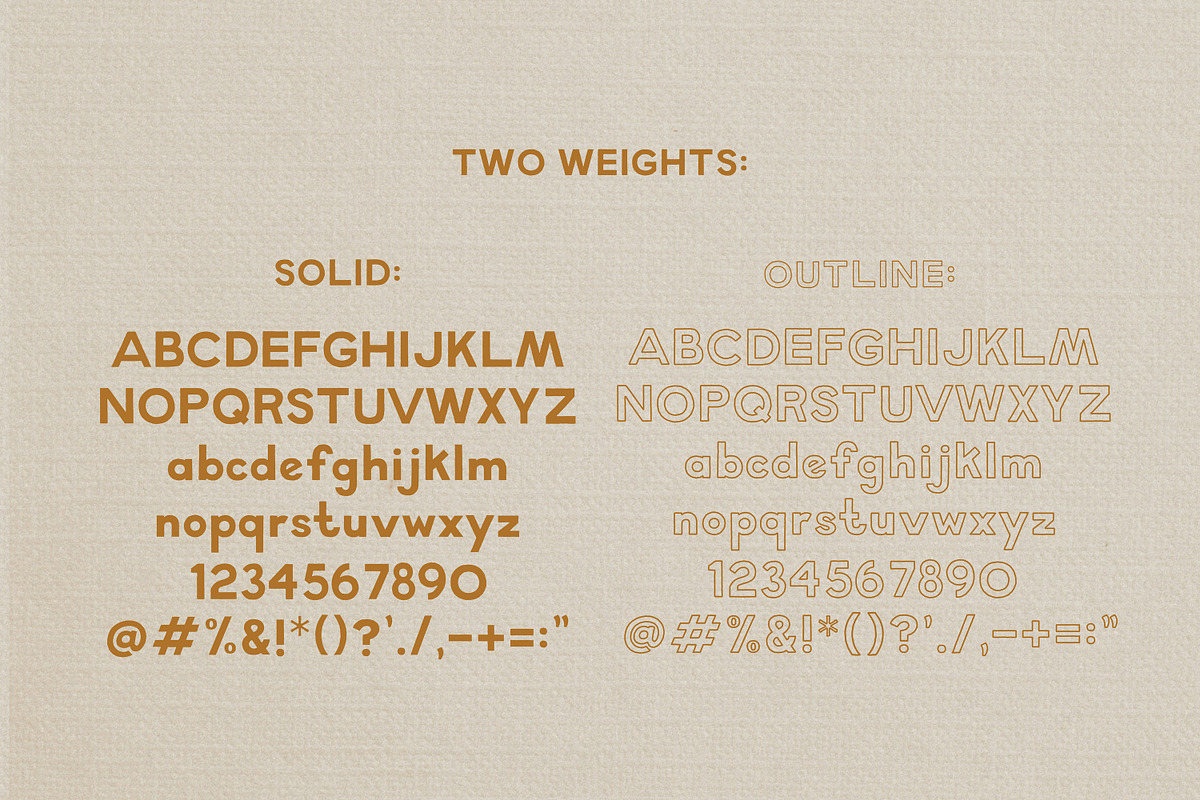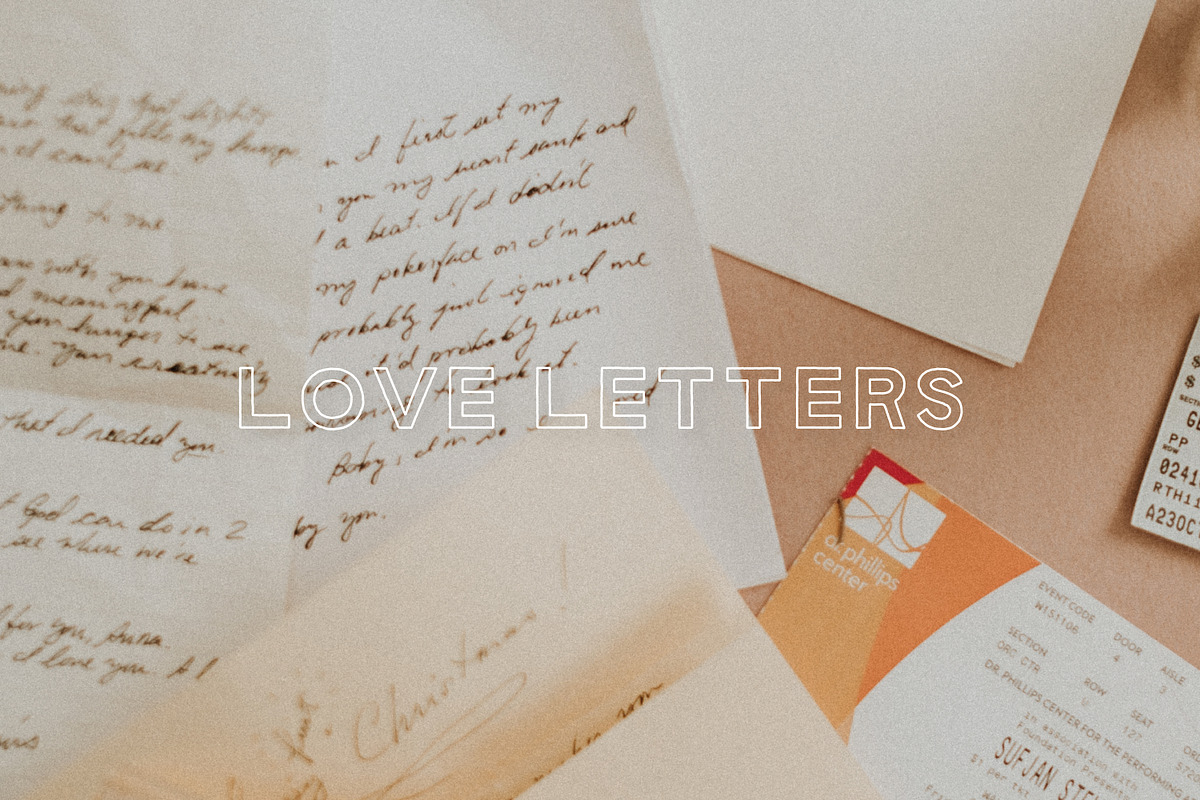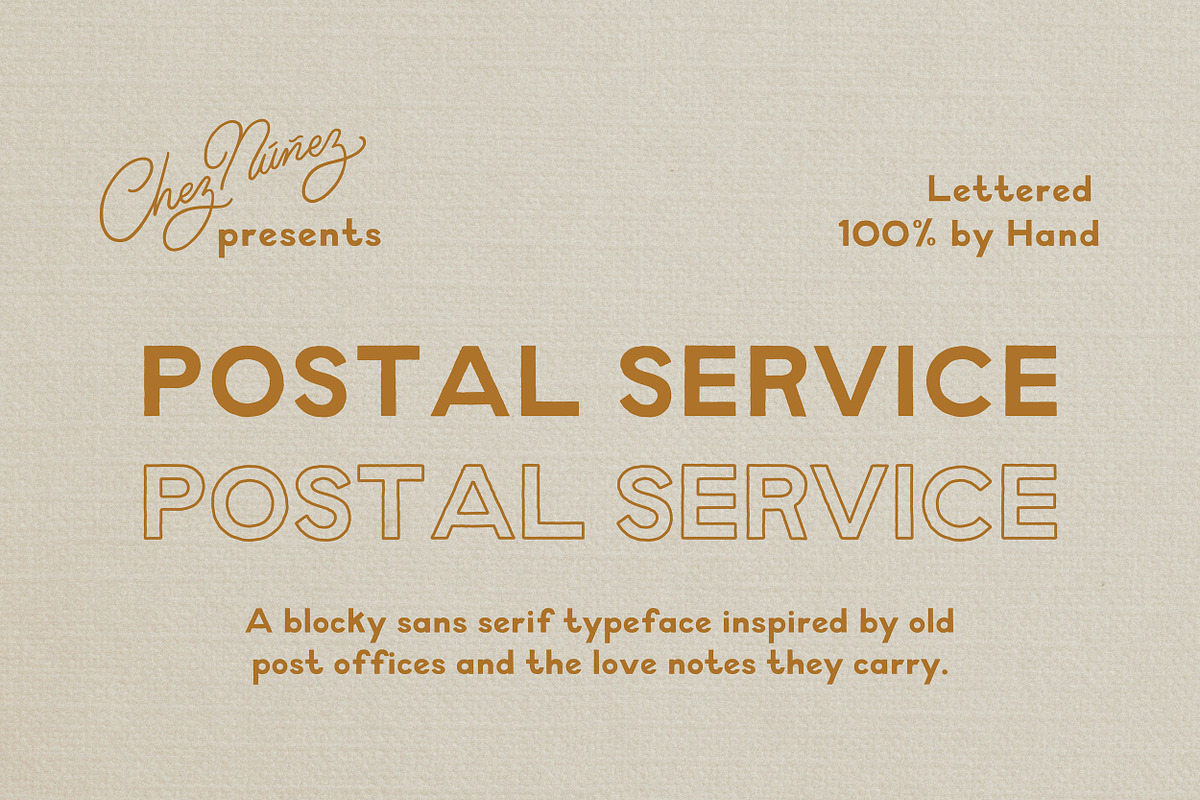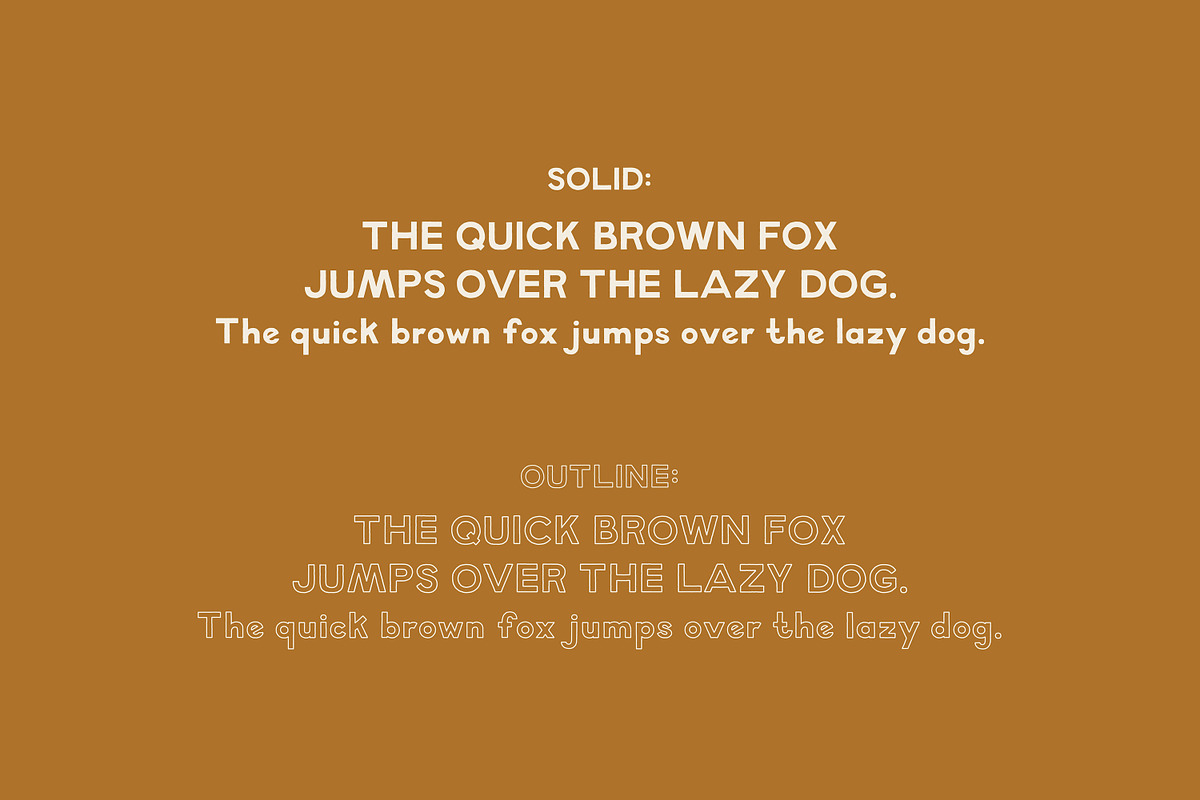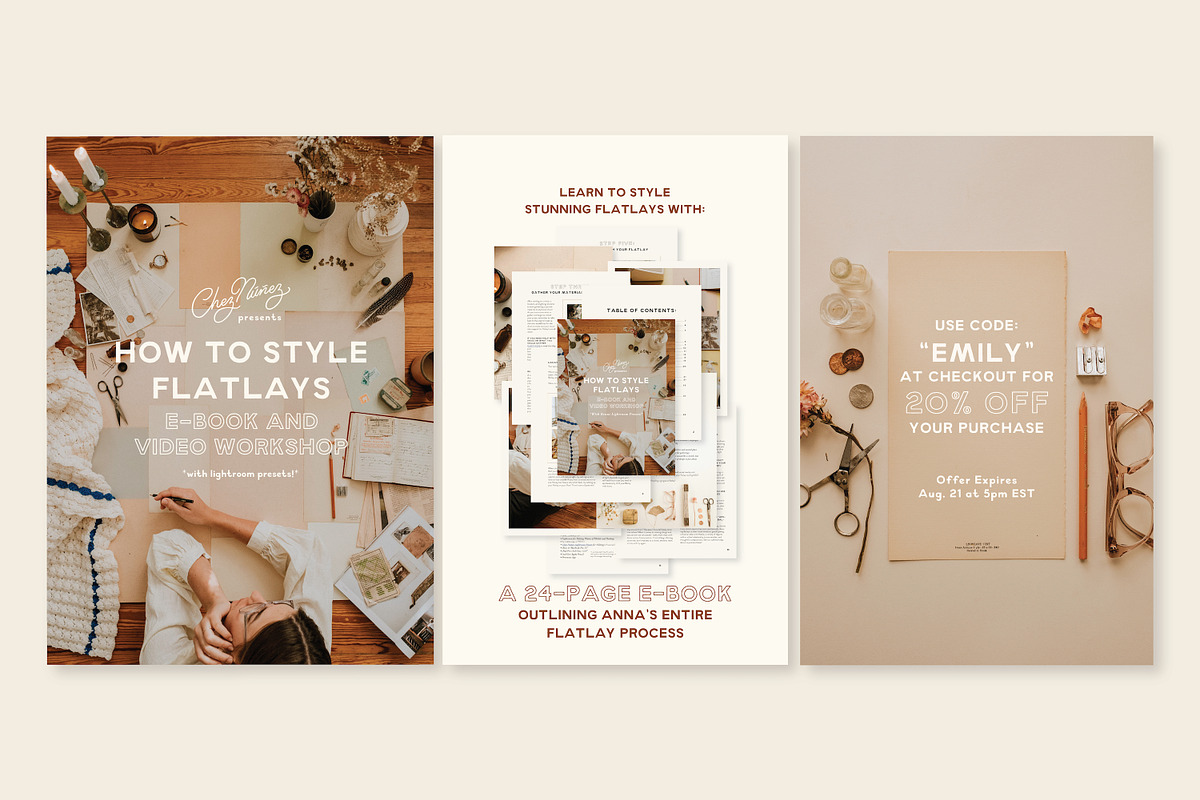
POSTAL SERVICE: Love Letters
A blocky, nostalgic sans serif typeface inspired by old post offices and the love notes they carry.
- 2 weights: SOLID and OUTLINE
- Standard Latin Characters + Numericals - lettered by hand, by Anna Núñez
- Punctuation, Mathematical Symbols, and Spanish accent marks - lettered by hand, by Anna Núñez